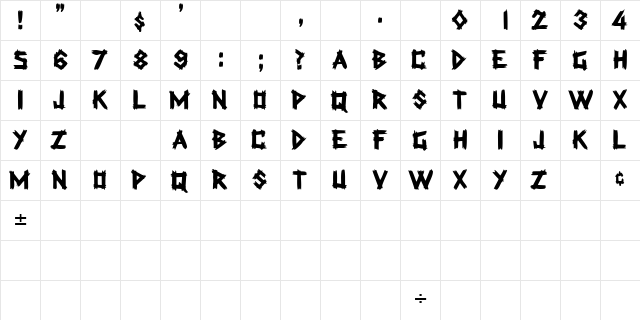
LatexDisplayCapsSSK Regular
Design Context for LatexDisplayCapsSSK Typeface
LatexDisplayCapsSSK is built around its visual character rather than neutral utility — its distinctive forms are designed to make an impression at display sizes.
Font Pairing: Pair with a clean neutral sans-serif for body copy to let LatexDisplayCapsSSK's character lead without overwhelming the composition.
Pro Tip: Treat LatexDisplayCapsSSK as the centrepiece of your typographic hierarchy. One strong heading set in a decorative face can carry an entire layout.